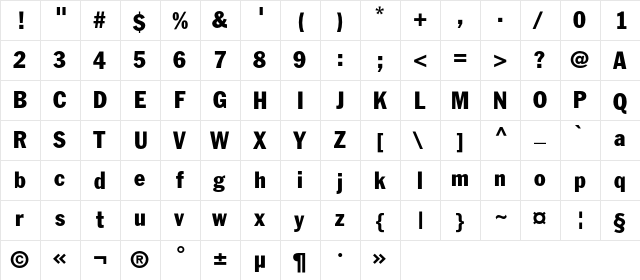
FagotCondensedC Regular
Design Context for FagotCondensedC Typeface
FagotCondensedC takes a measured approach to typography — its balanced proportions and neutral character make it a reliable workhorse for both digital and print work. The condensed width makes it efficient for tight spaces without sacrificing legibility.